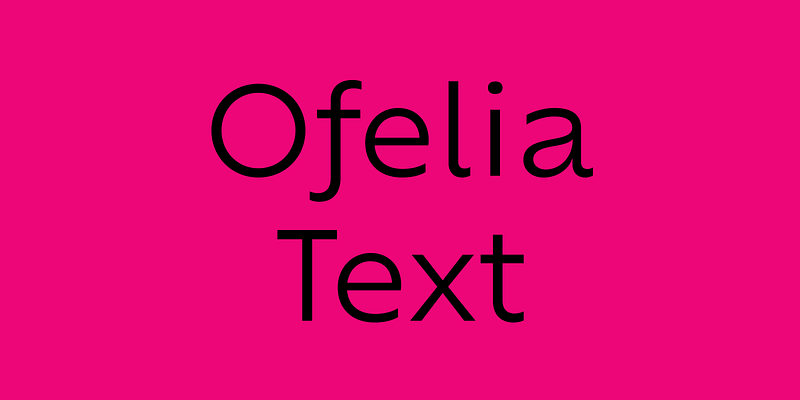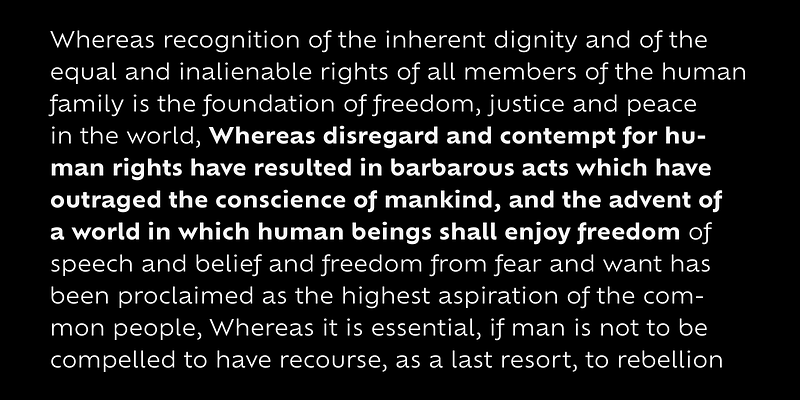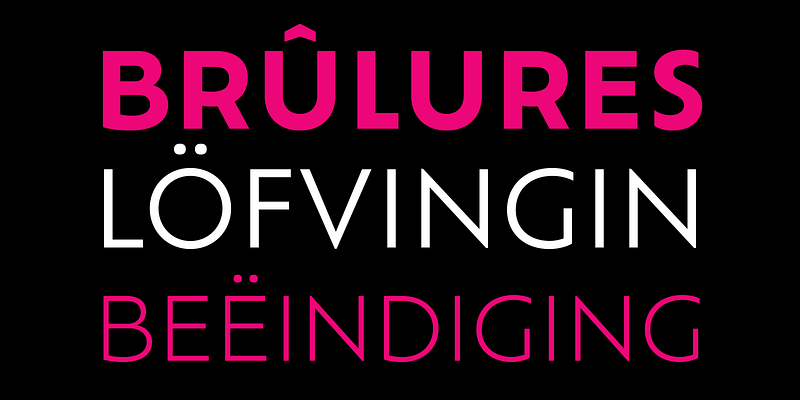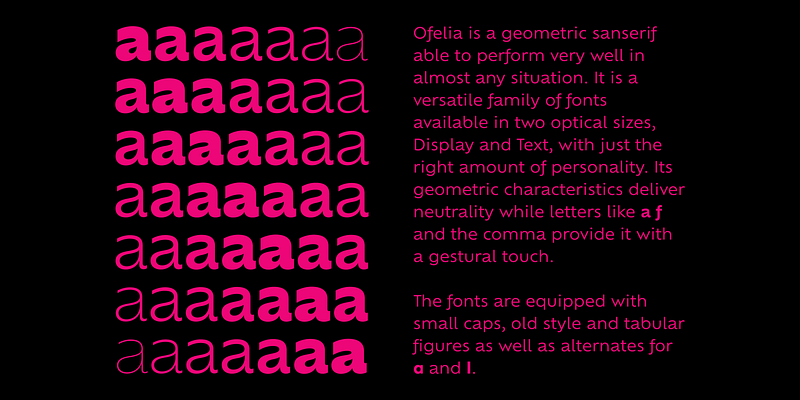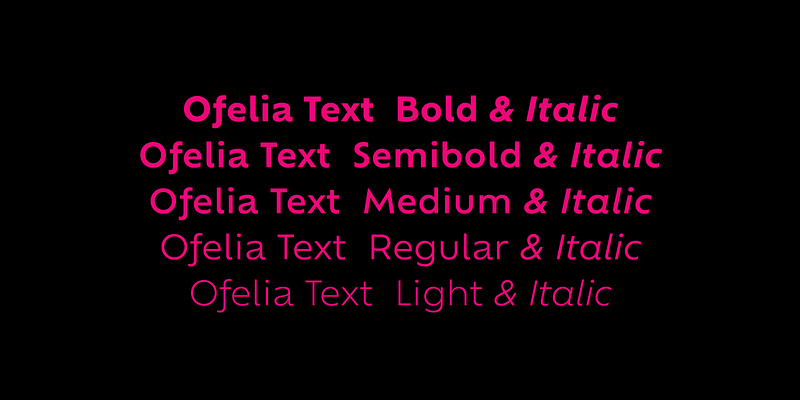
Ofelia is a geometric sanserif able to perform very well in almost any situation. It is a versatile family of fonts available in two optical sizes, Display and Text, with just the right amount of personality. Its geometric characteristics deliver neutrality while letters like /a /f and the comma provide it with a gestural touch. The fonts are equipped with small caps, old style and tabular figures as well as alternates for /a and /l